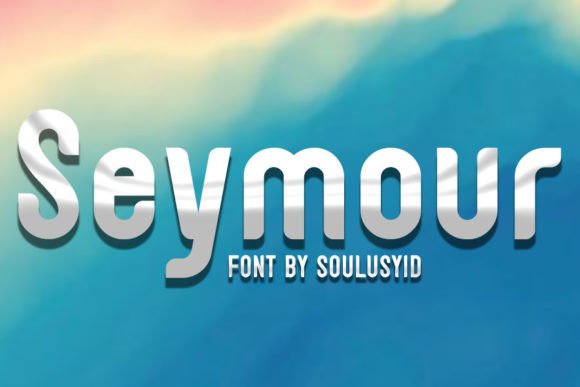
Step into an artistic dimension where elegance meets creativity, where letters dance with precision, and where your designs take on a life of their own. Seymour Font, a sensational sans serif creation by SoulusYid, is not just a font; it's a captivating symphony of lines and curves waiting to elevate your artistic endeavors.
Discover the world of Seymour Font, where simplicity and sophistication intertwine to bring forth a font that speaks volumes with its bold strokes and captivating glow. Let the clean lines and minimalist design of Seymour Font be your canvas as you craft headlines, short titles, and design elements that command attention and leave a lasting impression.
Experience the allure of a font that merges the grace of minimalism with the power of impact. The Seymour Font is your gateway to creating designs that radiate professionalism and sophistication while maintaining a bold, unforgettable presence. Dive into a world where your artistic vision takes center stage and let Seymour Font orchestrate a visual masterpiece.
Indulge in the seamless versatility of Seymour Font, effortlessly complementing a myriad of creative projects. Its clean, sans serif structure lends itself flawlessly to a symphony of design possibilities, from sleek brochures to eye-catching social media graphics. Embrace the boundless potential of Seymour Font and let its bold elegance amplify your message, reaching audiences and leaving an indelible mark.
Join the artistic revolution and unlock the limitless potential of Seymour Font, a groundbreaking masterpiece that transforms your artistic endeavors into visual masterpieces. Unleash a symphony of creativity as you bring forth designs that captivate, inspire, and resonate, leaving your mark on the world of art and design.